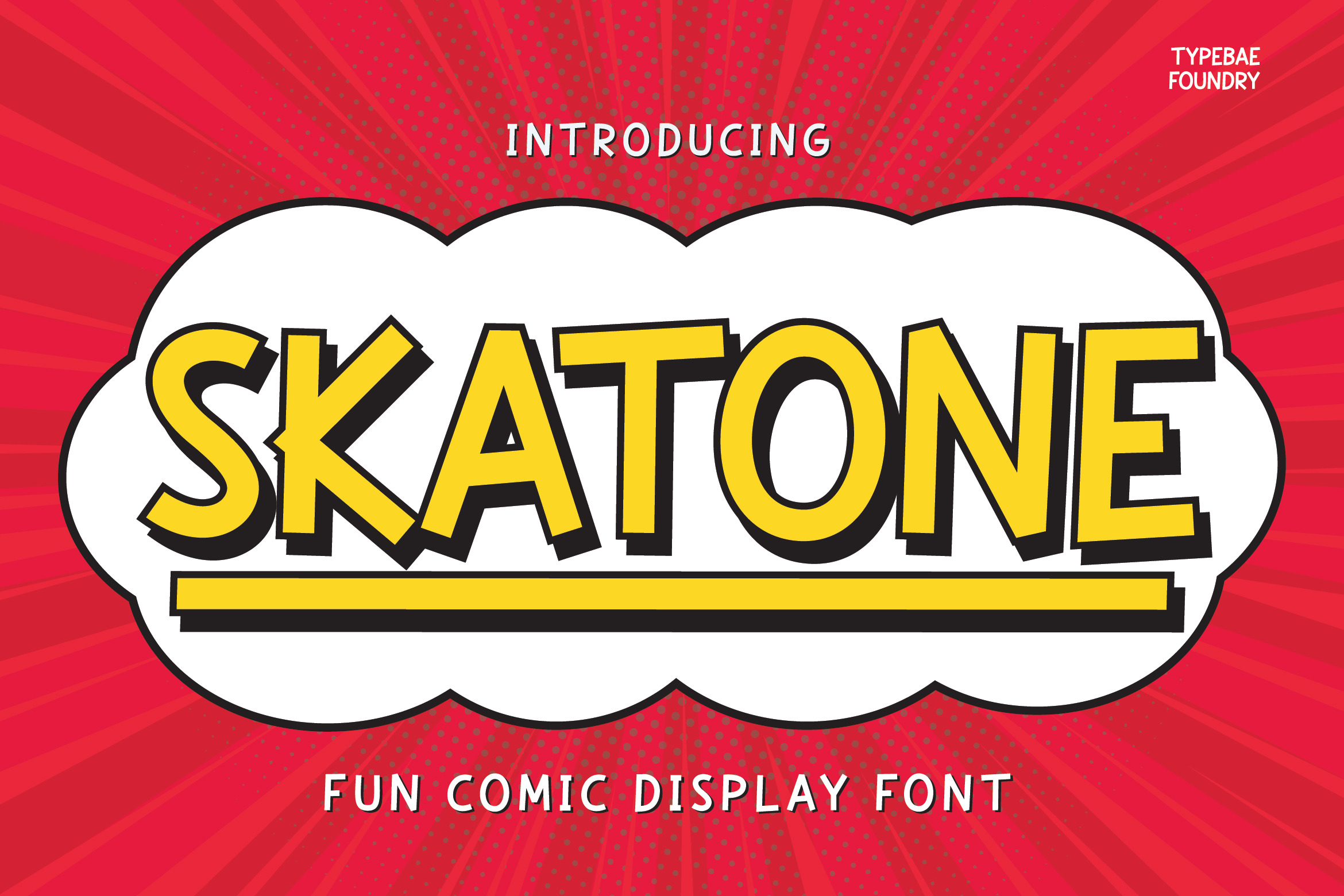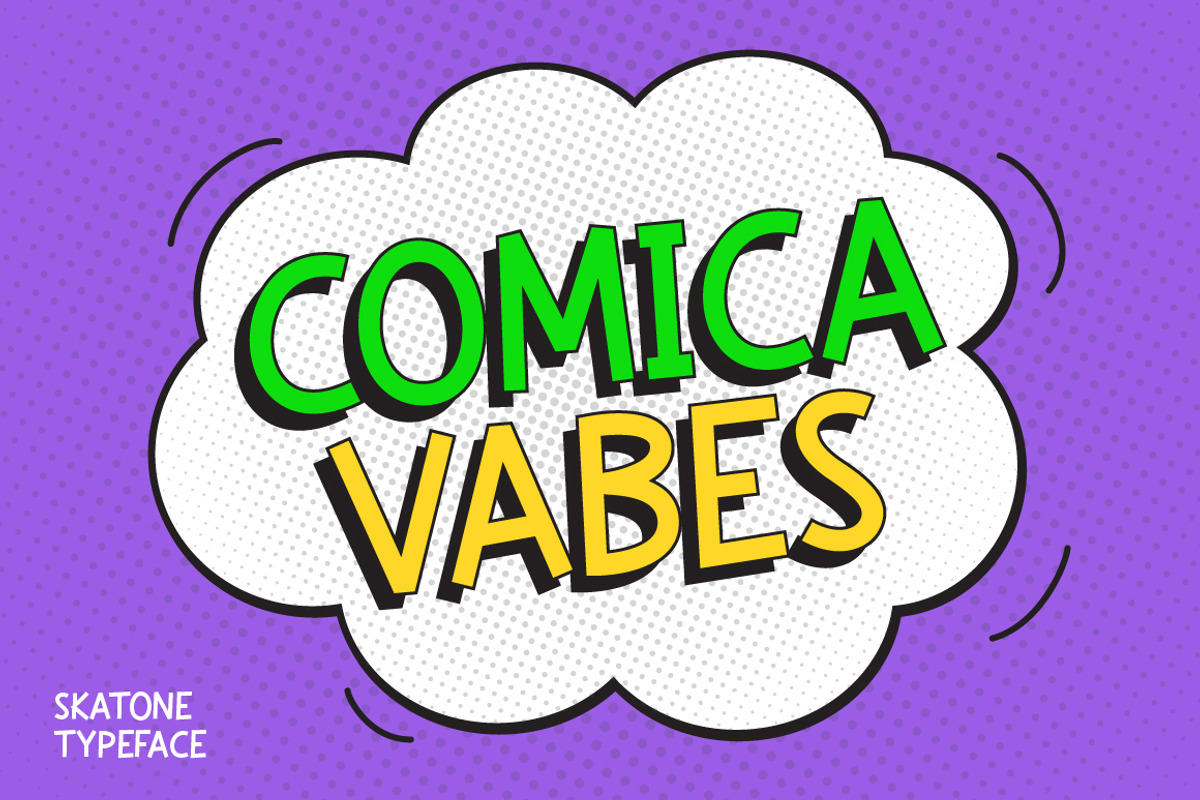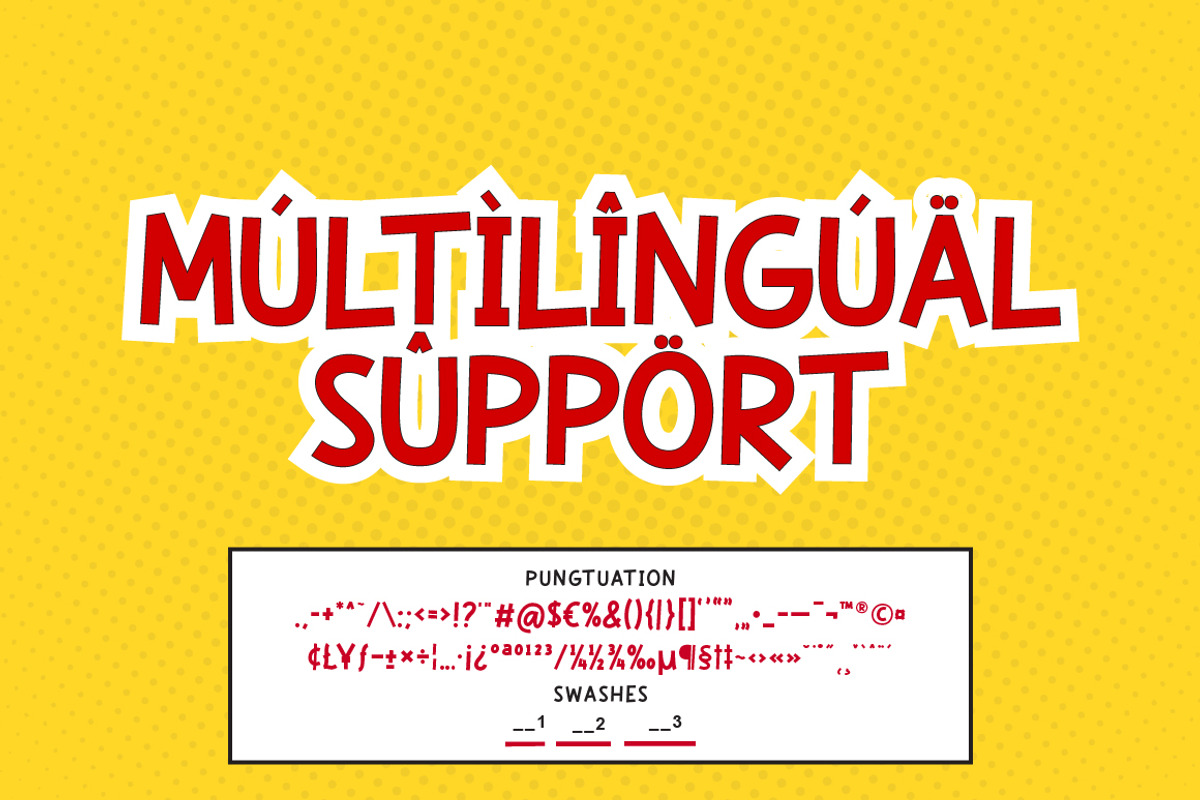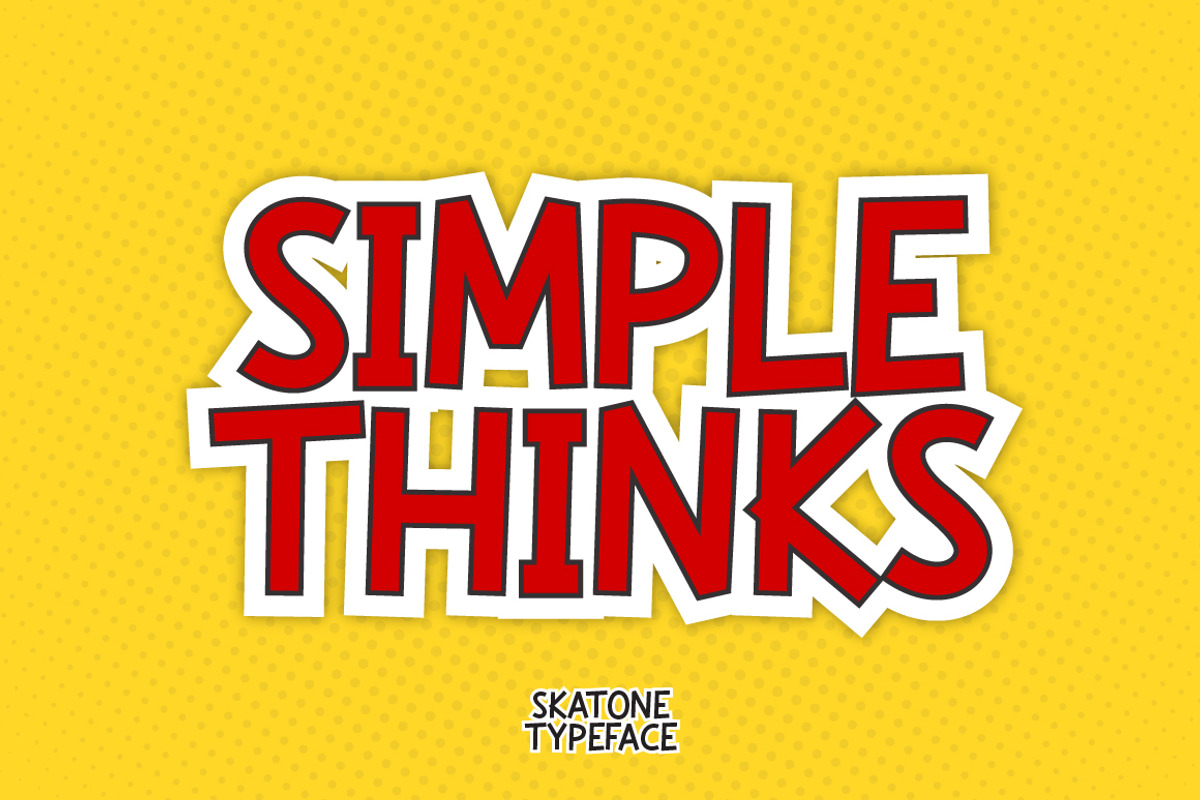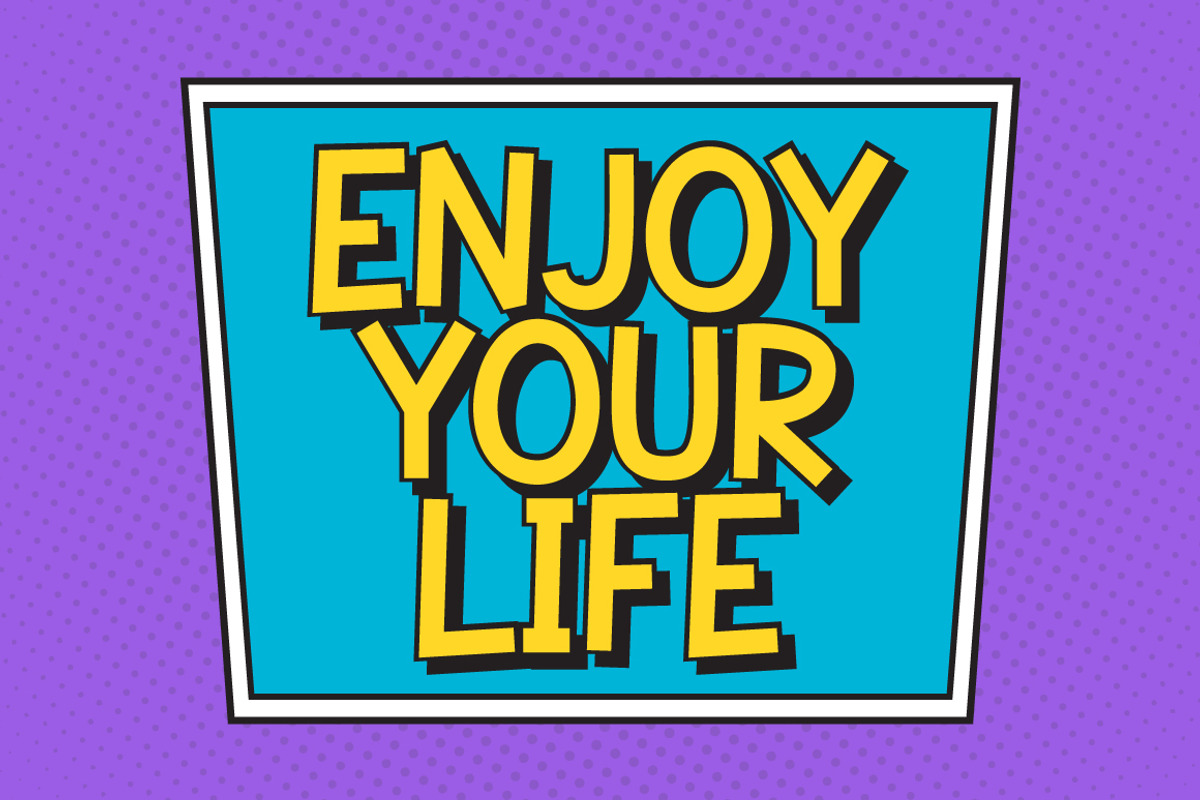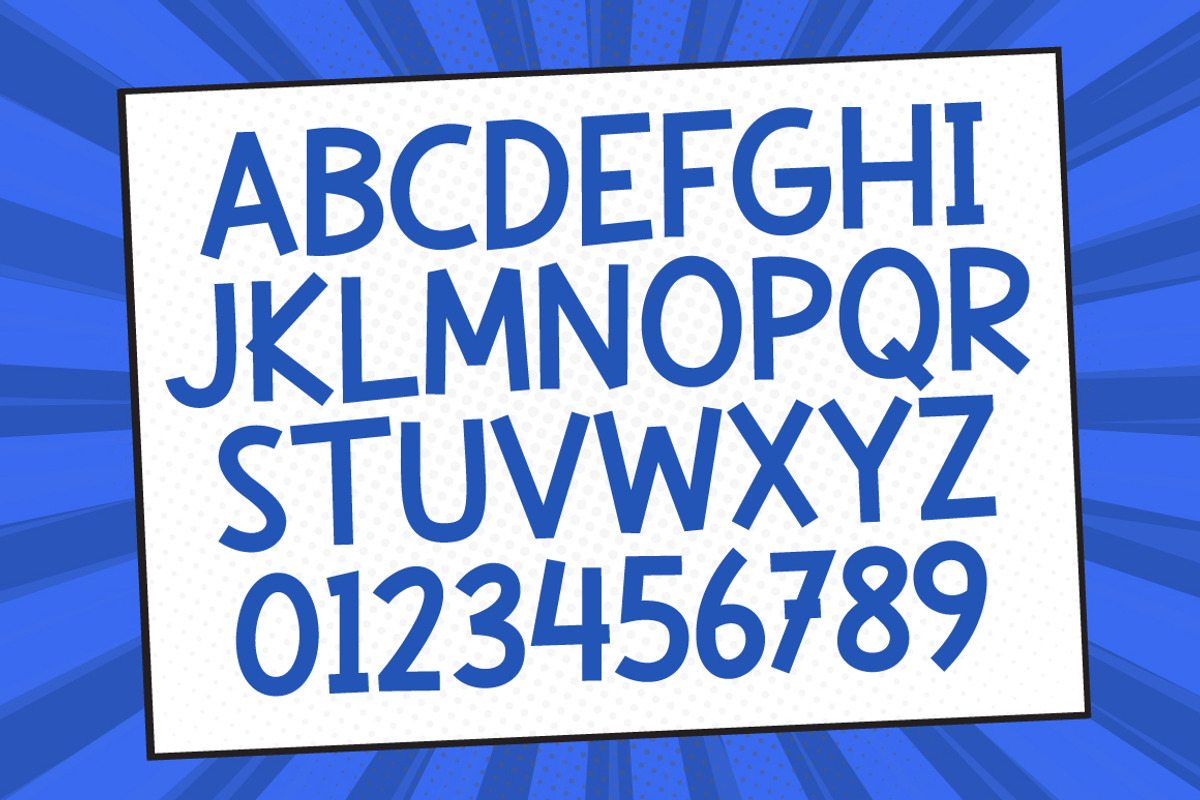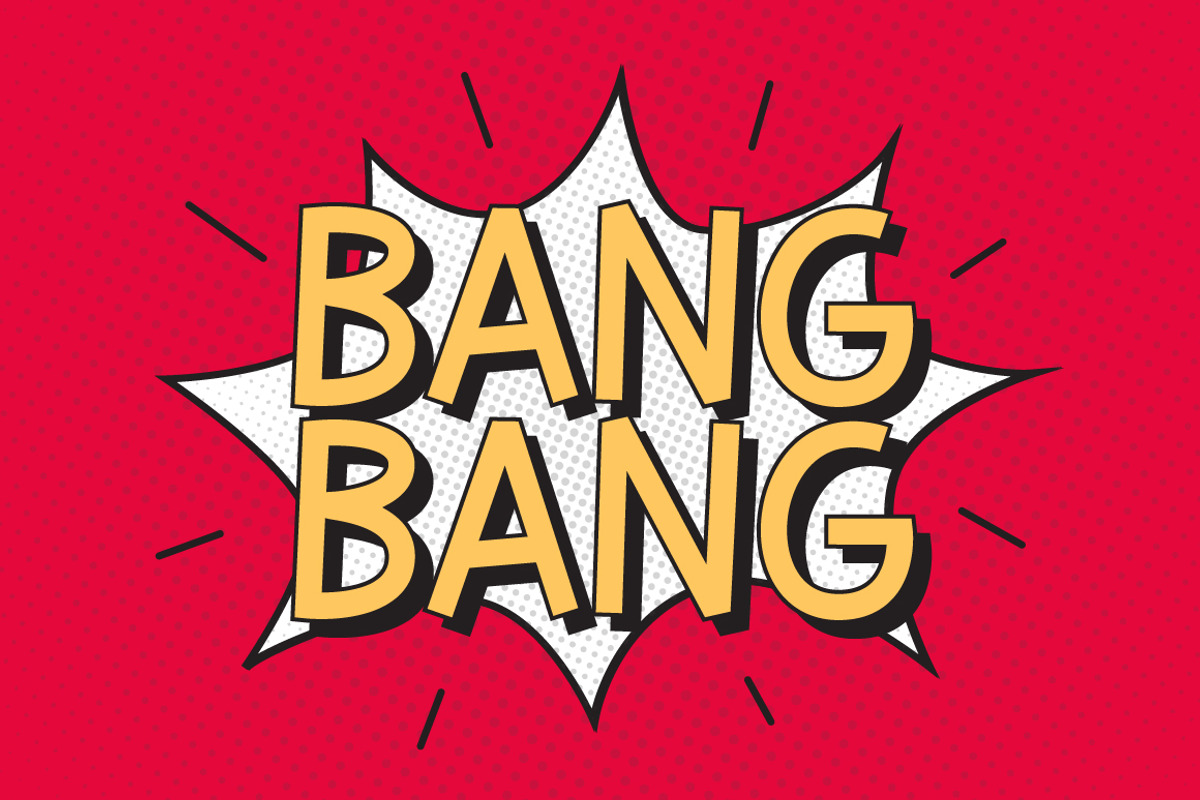
Skatone - Fun Comic Display Font
Skatone is a fun and lively comic display font. With its playful characters and vibrant style, it brings a sense of joy to your designs. Perfect for comic books, posters, or any project needing a touch of imagination, Skatone adds excitement to your text. Express your creativity with a font that radiates love and humor, making it perfect for visually engaging storytelling.
- All Caps, Numeral & Punctuation
- Underline Feature
- Multilingual & PUA Encoded